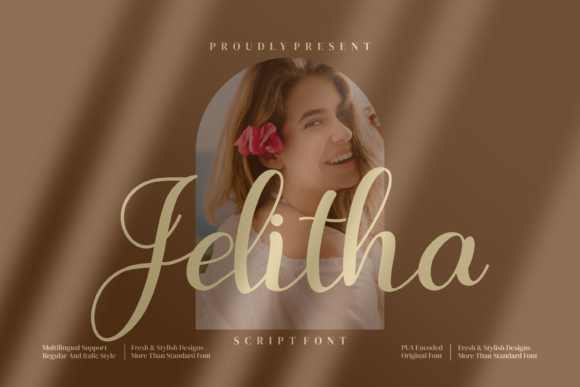
Prepare to be captivated by Jelitha, the epitome of grace and sophistication. This exquisite script font will enchant you with its ethereal beauty and timeless elegance. Picture your designs adorned with the flowing strokes and delicate flourishes of Jelitha – a symphony of artistry that will leave an everlasting impression.
Immerse yourself in a world of endless possibilities. Jelitha effortlessly transforms your words into captivating works of art, adding a touch of magic to every creation. Whether you're crafting heartfelt wedding invitations, expressing gratitude with heartfelt thank you cards, or capturing the essence of your brand with stunning logos and business cards, Jelitha will elevate your designs to new heights.
Step into a realm where dreams take flight. With Jelitha, your brochures become canvases for artistic expression, inviting readers to embark on an enchanting journey. Its intricate curves and graceful lines will captivate their senses, leaving them utterly spellbound.
Crafted with meticulous care by the renowned mahstudios, Jelitha is a masterpiece of typography. Its versatility knows no bounds, making it the perfect choice for both personal and professional projects. Unleash your creativity and let Jelitha guide you to design greatness.
Discover the allure of Jelitha today and witness the transformative power of this extraordinary font. Every stroke, every flourish, every letter is an invitation to create something truly extraordinary. Let your imagination soar and embrace the beauty of handwritten elegance.